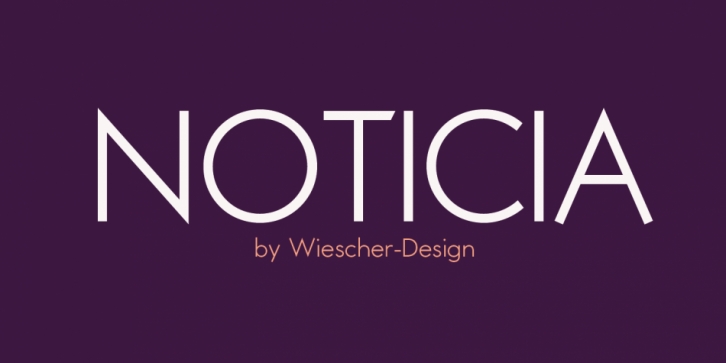
Designed by Gert Wiescher, Noticia is a sans serif font family. This typeface has ten styles and was published by Wiescher-Design.
A sans serif font based off the Bauhaus era, resembling that of Herbert Bayer and Paul Renner’s works.